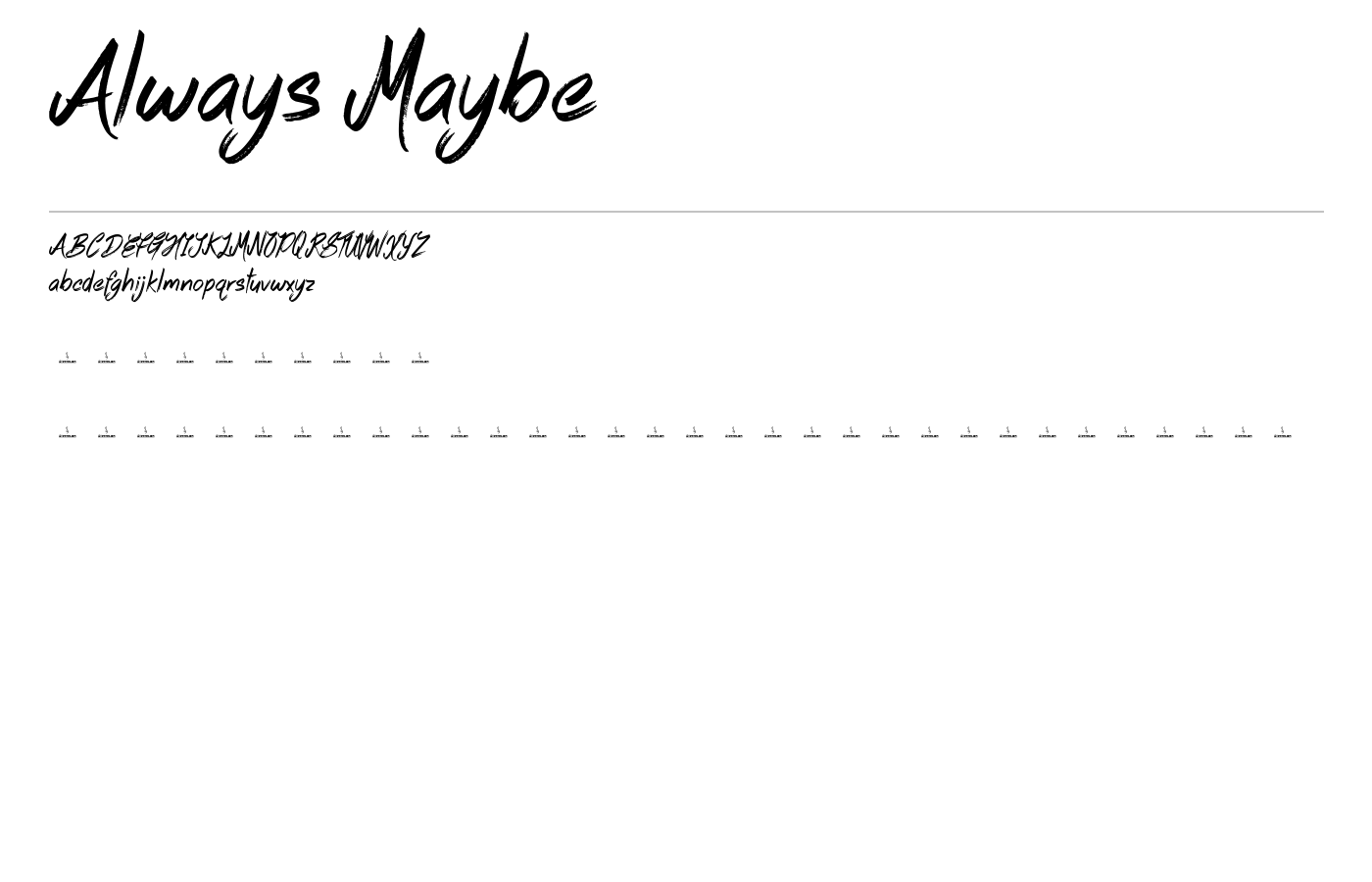
Always Maybe is a lively, brush-script font characterized by its casual, hand-painted style with fluid, energetic strokes and a textured finish. Its upright italic feel and natural flow make it perfect for adding a personal, artistic touch to creative projects, branding, and packaging where warmth and spontaneity are desired. This font works especially well for headlines or logos that seek to convey a friendly and expressive personality.
Always Maybe Font
About Always Maybe Font
| Font family | Always Maybe Font |
| Designer | Jonathan S. Harris |